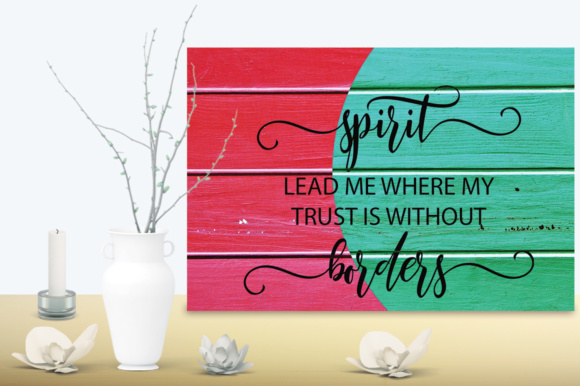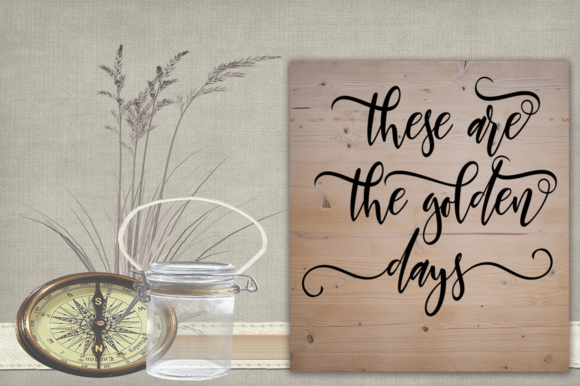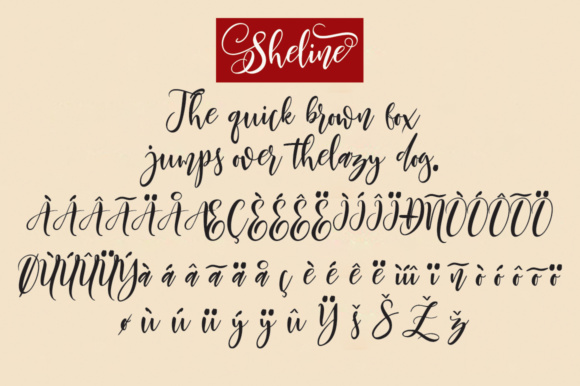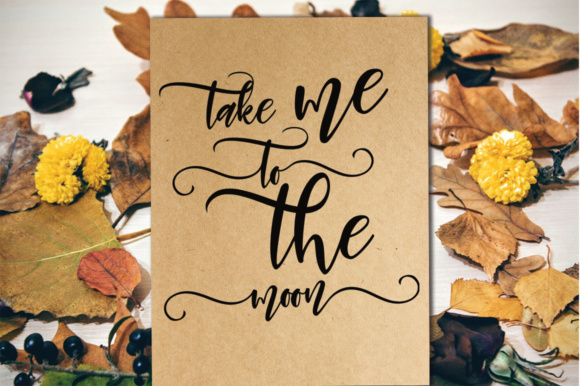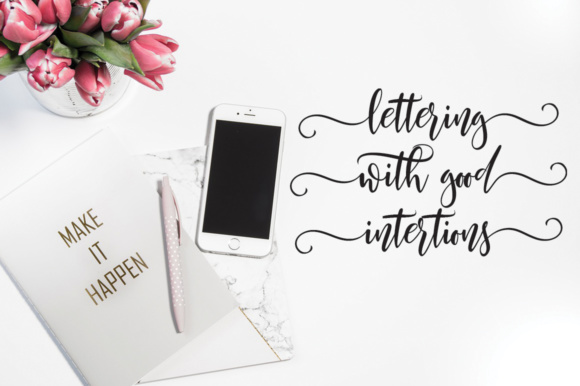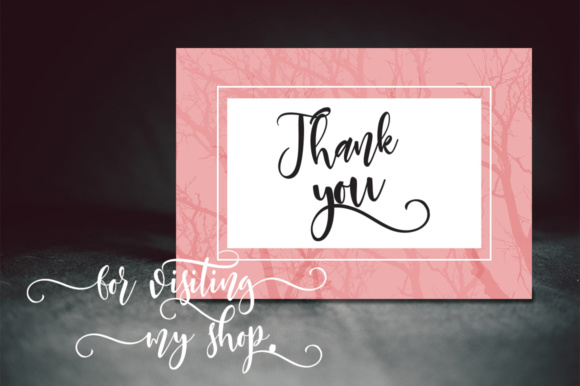
Sheline Font
About Sheline Font
The Sheline is a striking handwritten typeface. It has an striking, yet elegant look which makes it perfect for every design that needs to look upscale and chic.